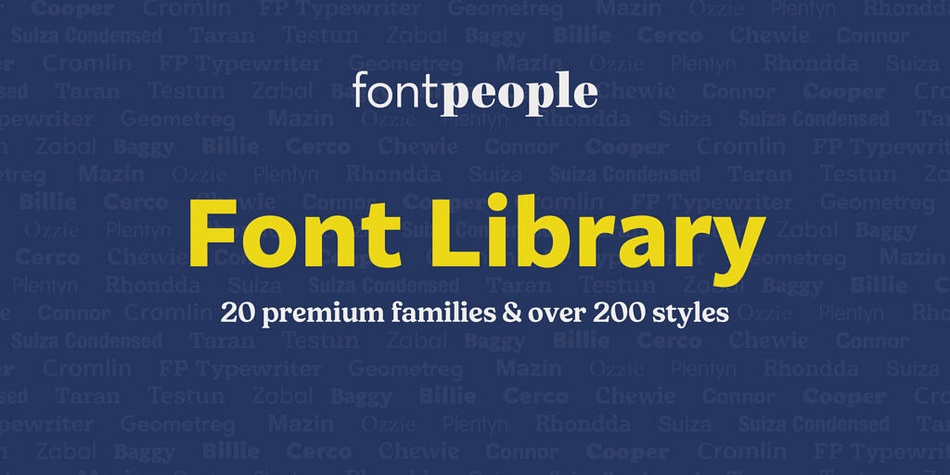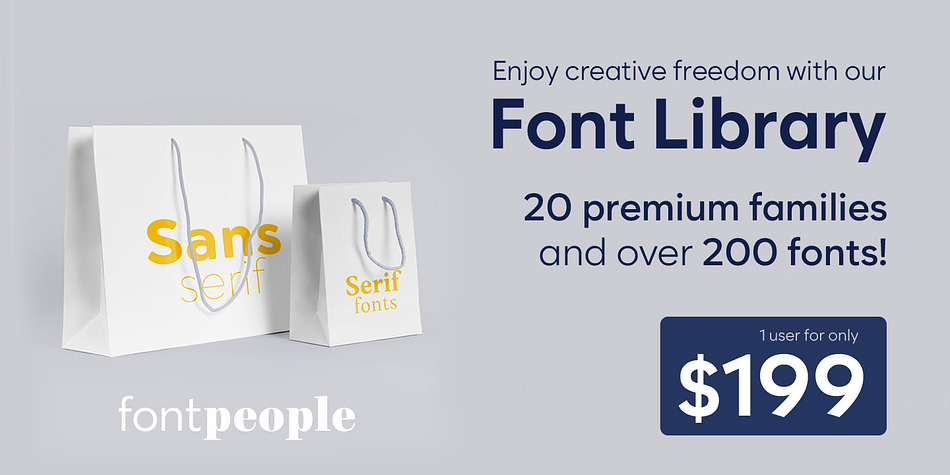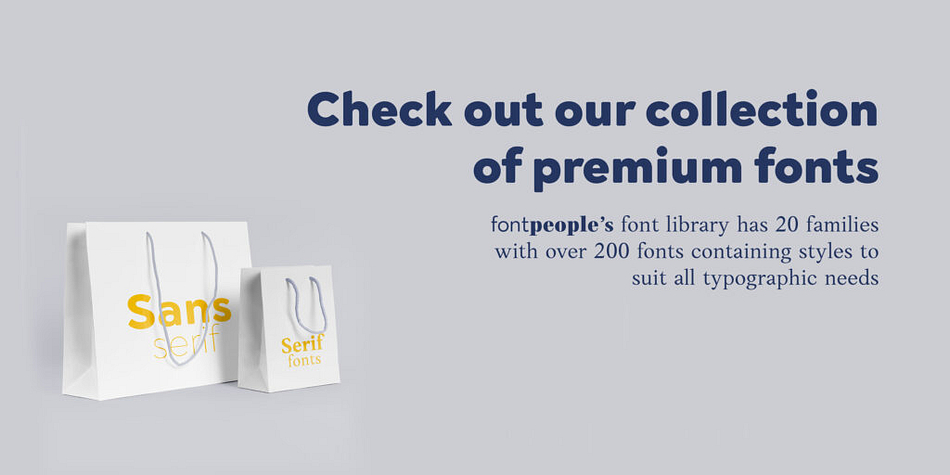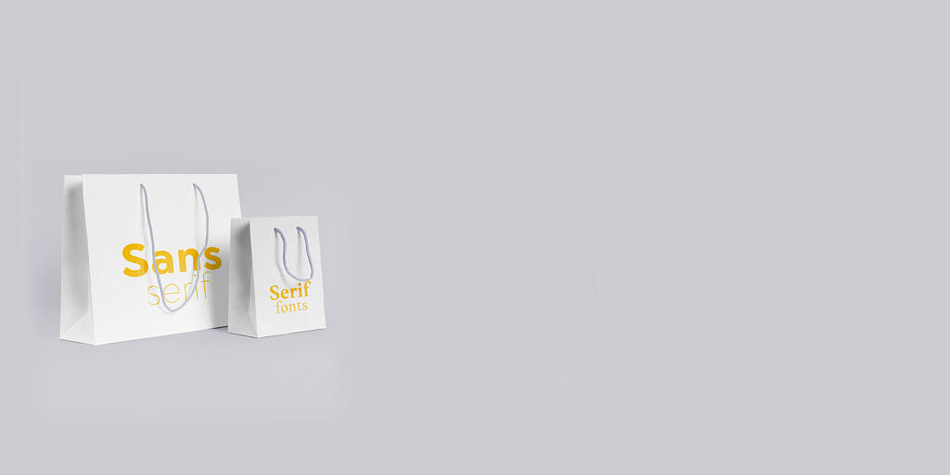
Designed by John Beltrán, Jason Harcombe, Max Saille, Jörn Oelsner and Iachawr Telyncombe, FontPeople Library is a multiple classification font collection published by FontPeople.
FontPeople’s premium library of 20 families has a typeface for all occasions. Whether you’re an architect looking at wayfinding, putting together a cookery book or building a 70’s music website, you’ll find what you need in this beautifully curated collection of over 200 fonts.